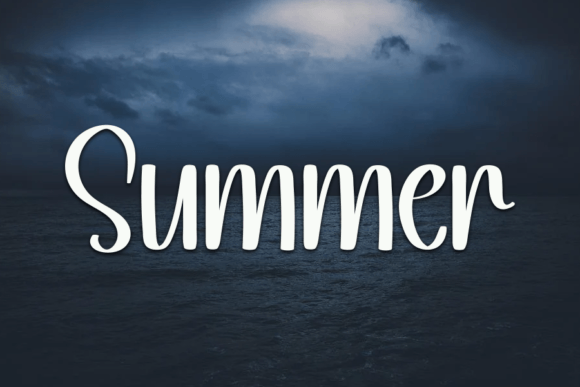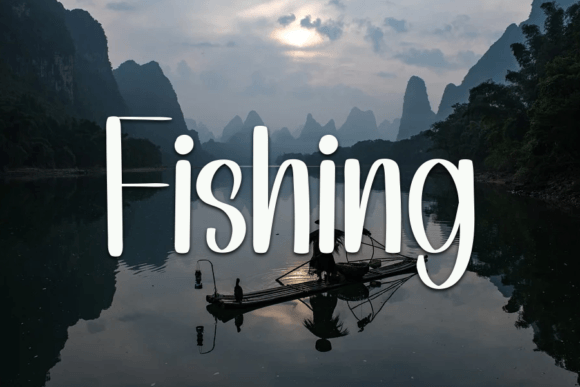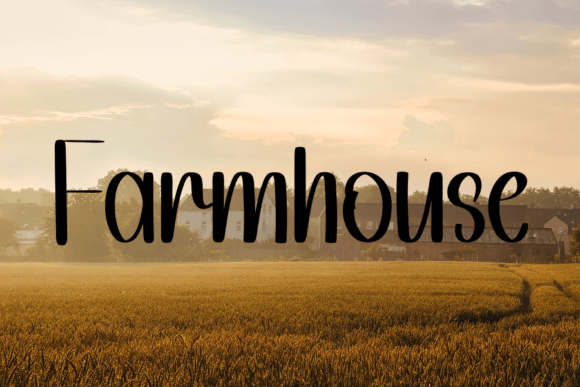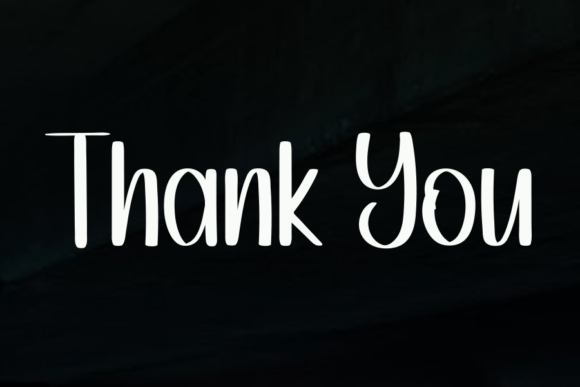
Sunday Font
About Sunday Font
**Sunday Handwritten Font – Add a Luxurious Spark to Your Designs**
The Sunday Handwritten Font is a sweet and luxurious typeface that brings an elegant and sophisticated touch to your design projects. With its graceful, dancing characters along the baseline, Sunday adds a unique and charming quality to your typography. Here are some stylish ways to use the Sunday Handwritten Font:
1. **Invitations and Stationery:** Create stunning invitations for weddings, galas, and upscale events using the Sunday font. Its elegant and flowing characters set the tone for a luxurious affair.
2. **Logo Design:** Craft logos and brand identities that exude sophistication and refinement with the Sunday font. It’s ideal for high-end brands looking to make a lasting impression.
3. **Packaging Design:** Enhance the packaging of luxury products such as cosmetics, perfumes, and gourmet goods with Sunday. Its graceful script adds a touch of elegance to the visual presentation.
4. **Magazine Headings:** Use Sunday for magazine headings and article titles to give your publication a premium and stylish look. It’s perfect for fashion, lifestyle, and beauty magazines.
5. **Wine and Spirits Labels:** Design labels for fine wines, champagnes, and spirits with the Sunday font. Its calligraphic charm complements the sophistication of these products.
6. **High-End Menus:** Create upscale restaurant menus with Sunday to convey a sense of luxury to diners. Its handwritten elegance adds an artistic flair to the dining experience.
7. **Wedding Designs:** Design wedding invitations, place cards, and menus with Sunday for a touch of romance and refinement. It’s perfect for couples seeking a classy aesthetic.
8. **Jewelry Branding:** Craft logos and branding materials for jewelry and accessories brands with Sunday. Its graceful strokes evoke the elegance of precious gemstones.
9. **Boutique Signage:** Use Sunday for signage and branding materials for boutique shops and high-end stores. Its handwritten charm attracts discerning shoppers.
10. **Social Media Graphics:** Create sophisticated and stylish social media posts, quotes, and announcements using Sunday. It’s great for brands and influencers in the luxury niche.
11. **Event Promotion:** Promote upscale events, art exhibitions, and cultural gatherings with Sunday for eye-catching posters and promotional materials.
12. **Artistic Packaging:** Design packaging for artistic and handmade products, such as artisan chocolates or handcrafted soaps, with Sunday to add a touch of artistry.
13. **Fine Art Prints:** Use Sunday to create fine art prints and posters that showcase the beauty of calligraphy and handwritten art.
14. **Book Covers:** Design book covers for novels and poetry collections with Sunday to convey a sense of literary elegance and craftsmanship.
15. **Personal Branding:** Use Sunday for personal branding, including portfolio websites, business cards, and resume headers, to present yourself with sophistication.
The Sunday Handwritten Font’s luxurious and graceful style elevates your designs, making them suitable for high-end and upscale projects. Its flowing characters and dancing baseline add a touch of artistry and charm, making it an ideal choice for those seeking to infuse their work with elegance and refinement. Whether you’re designing for special occasions or premium brands, Sunday brings a touch of luxury to your typography and design endeavors.